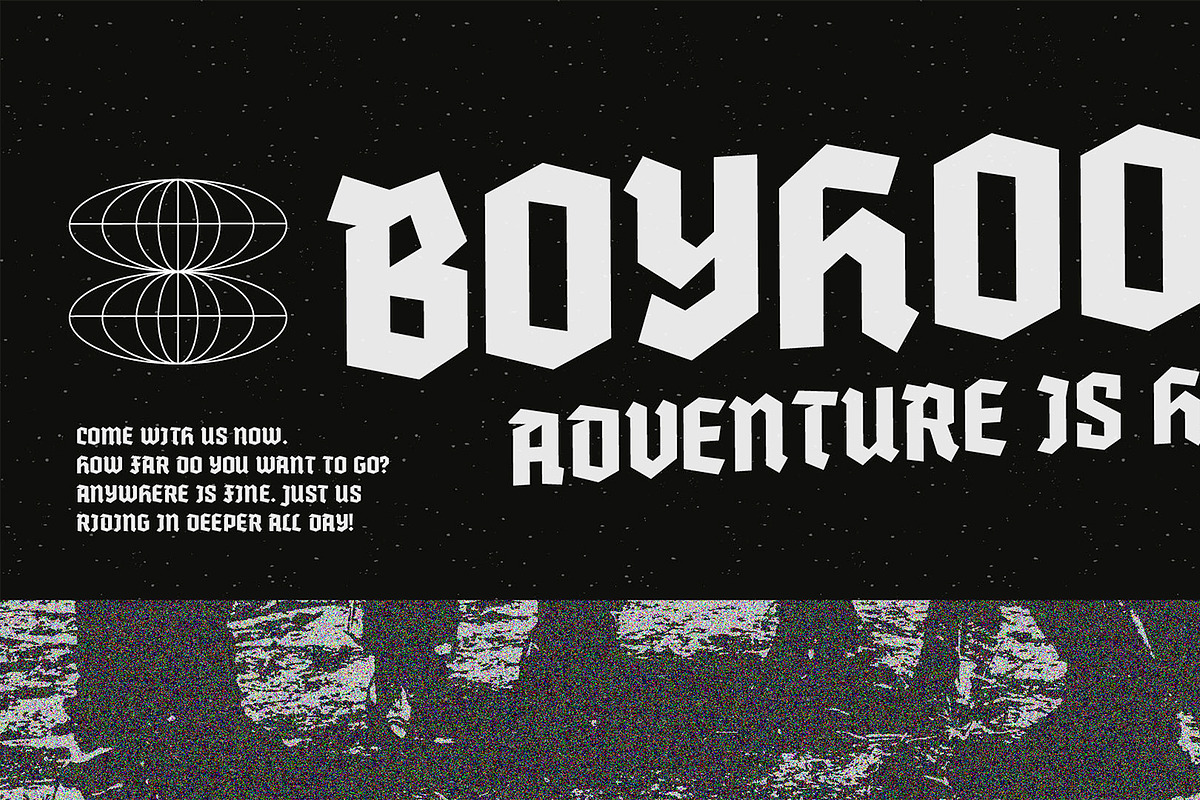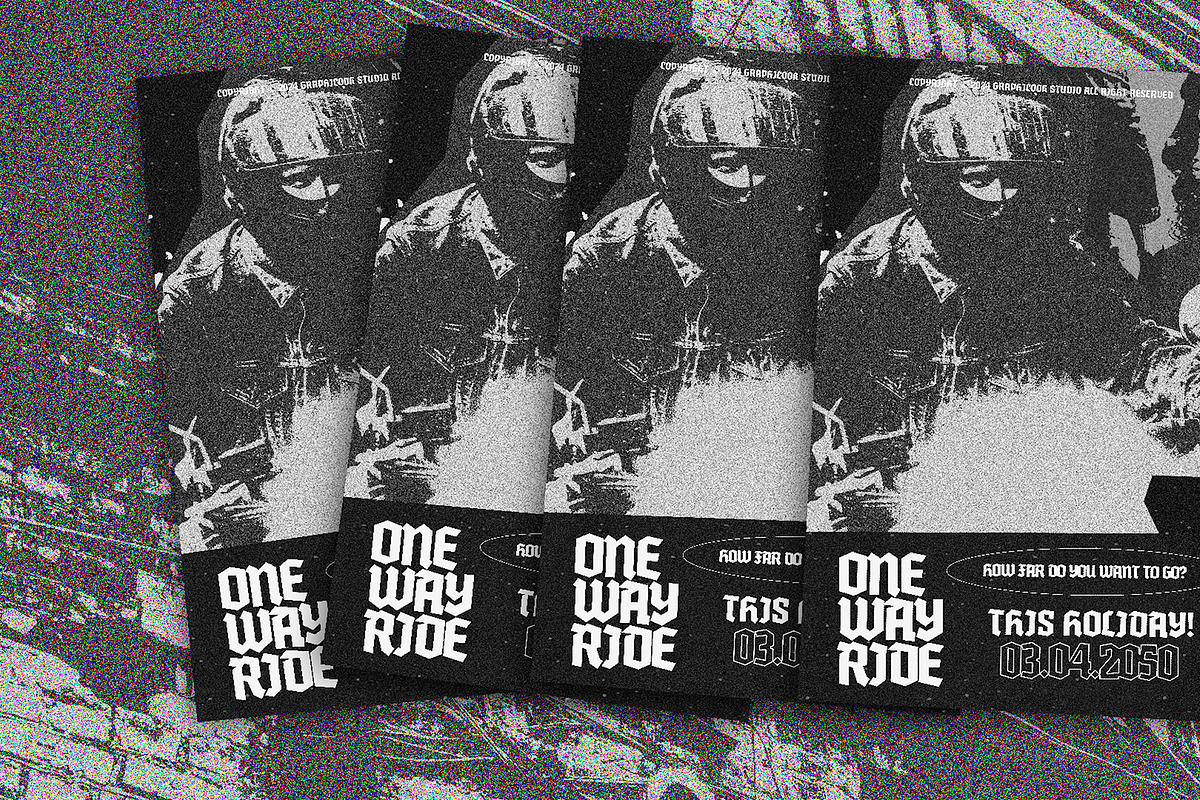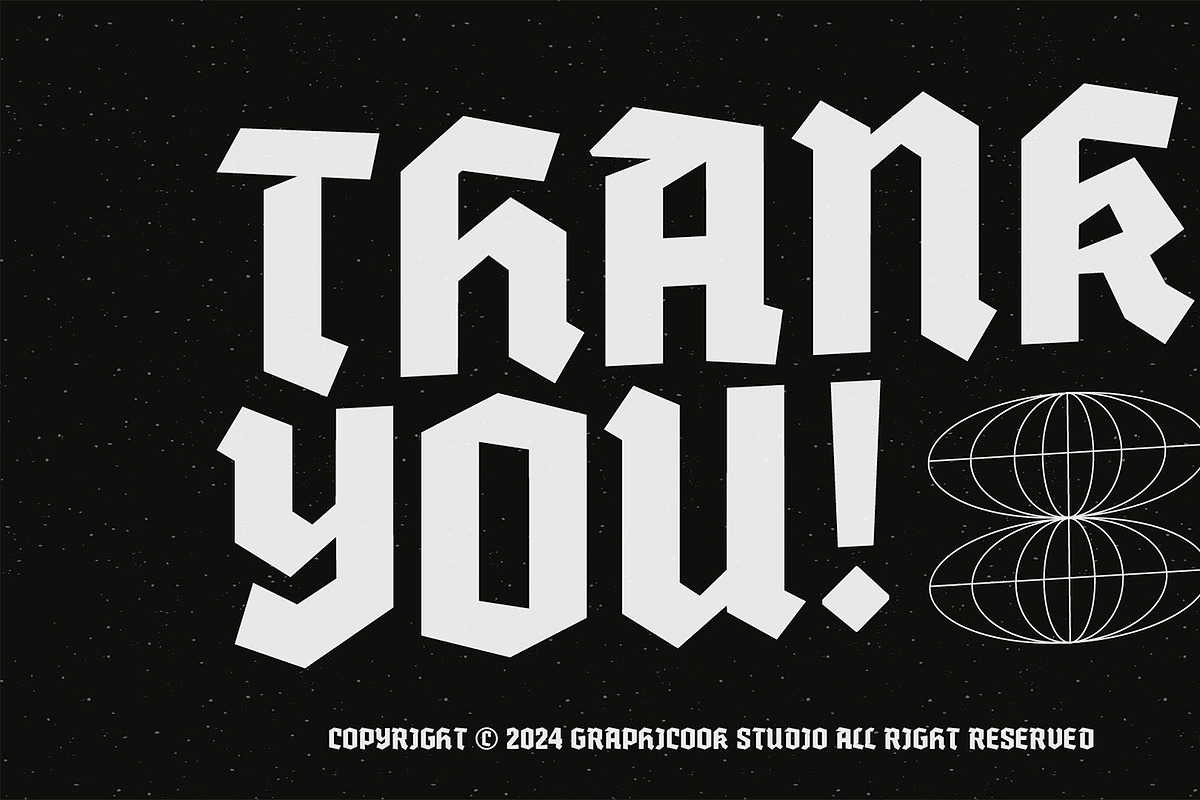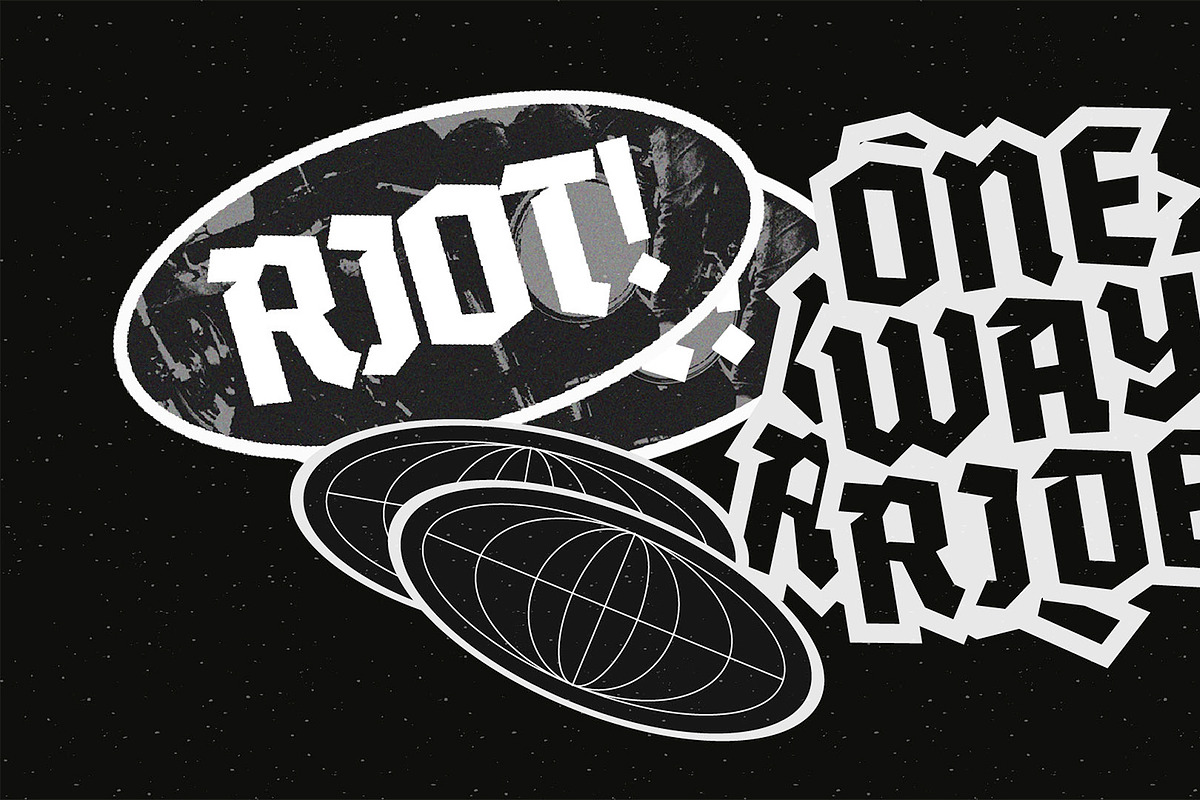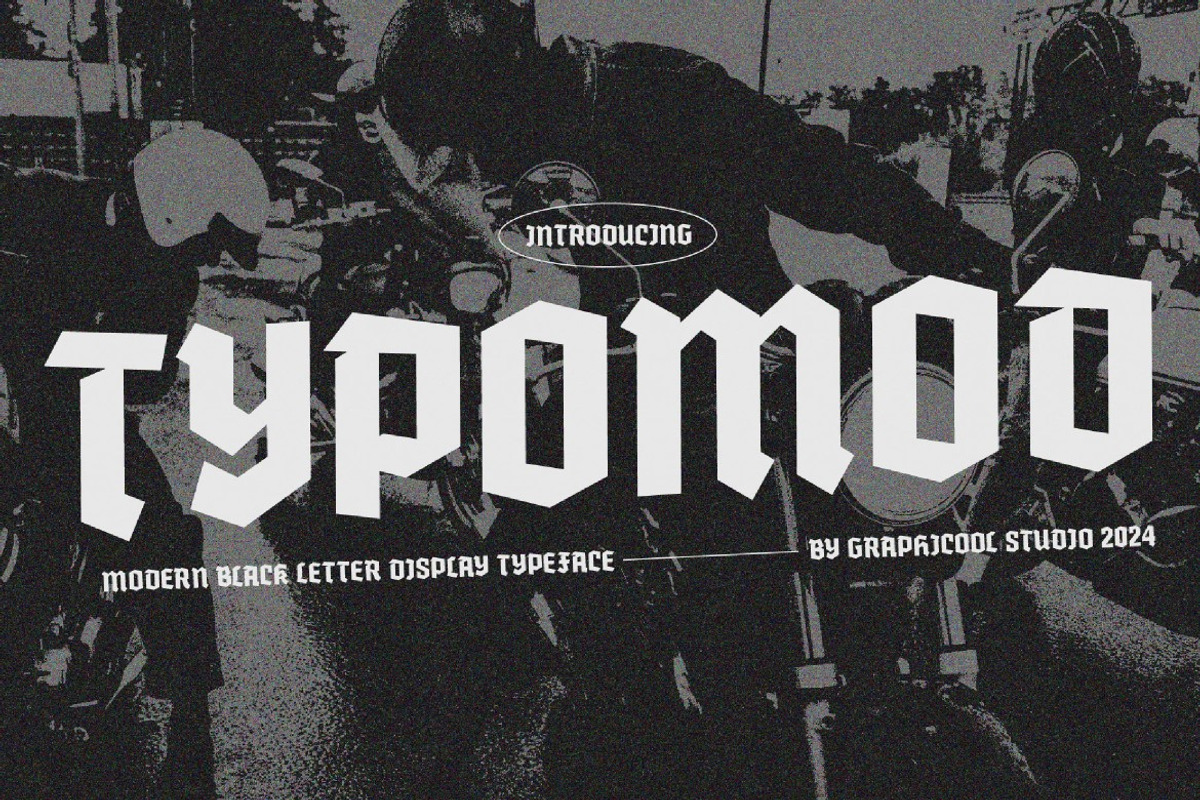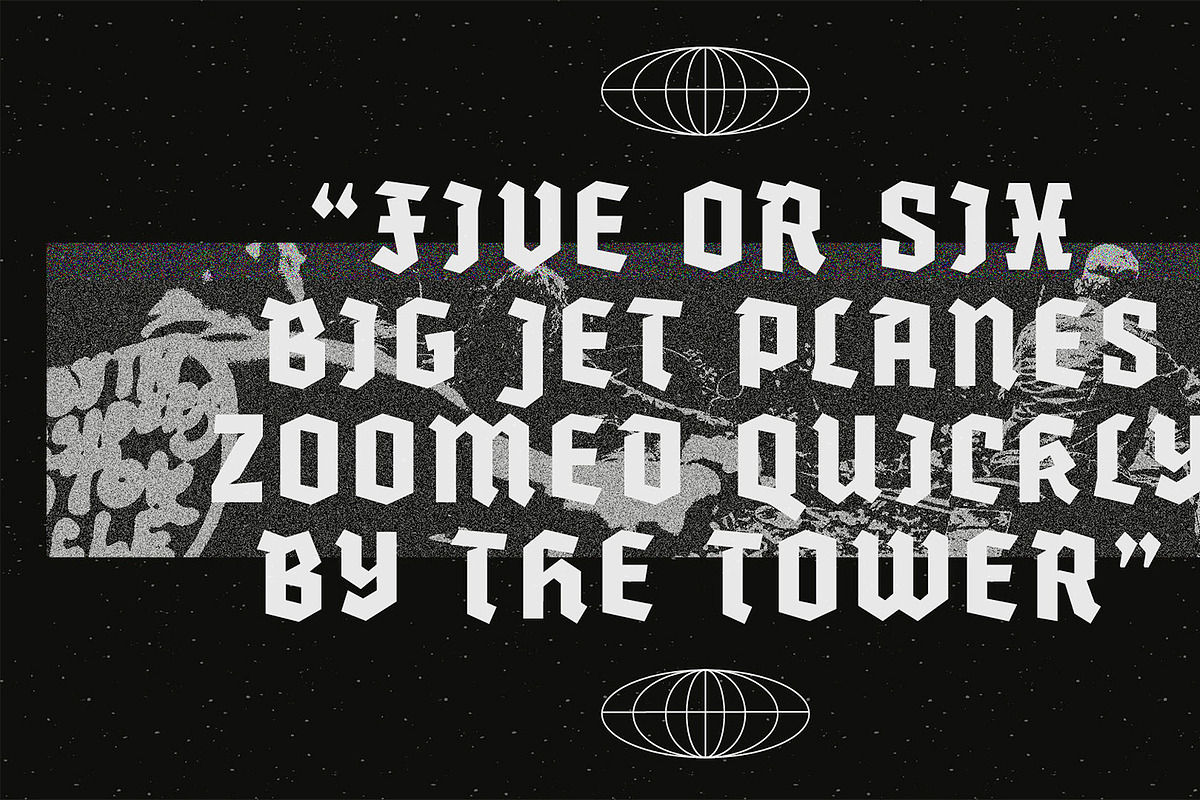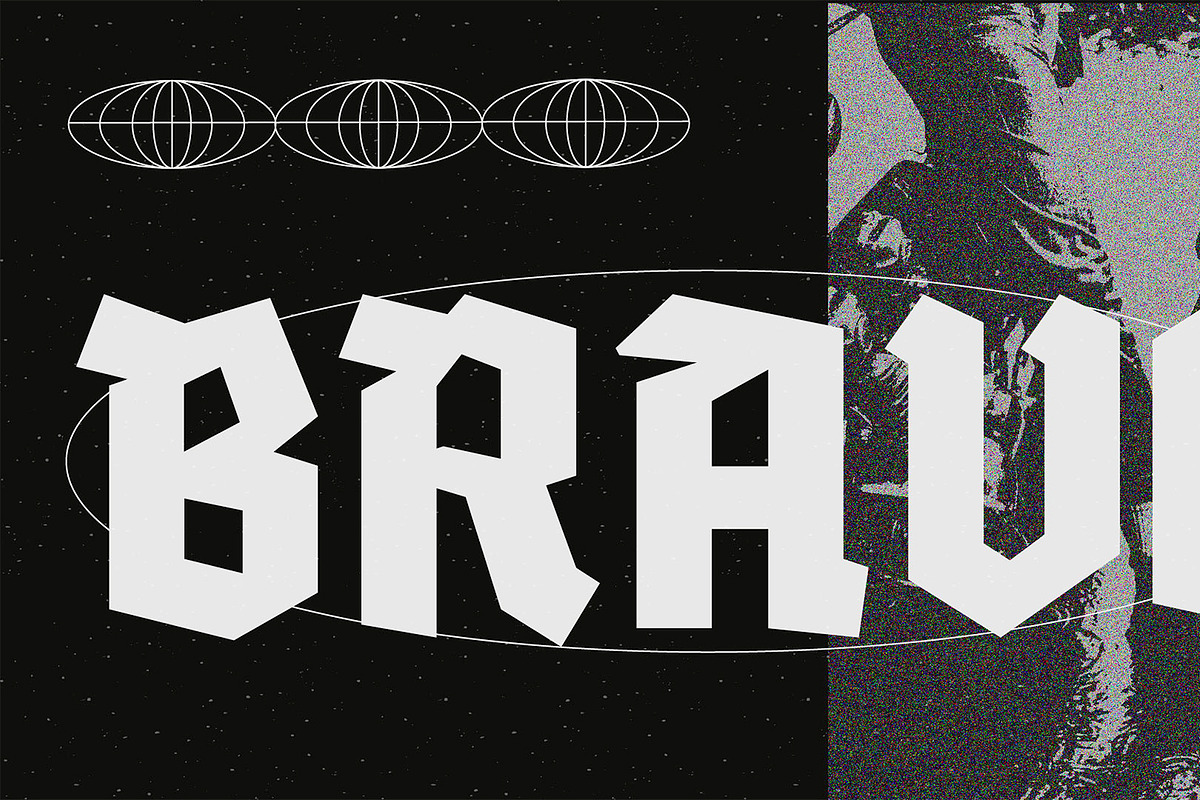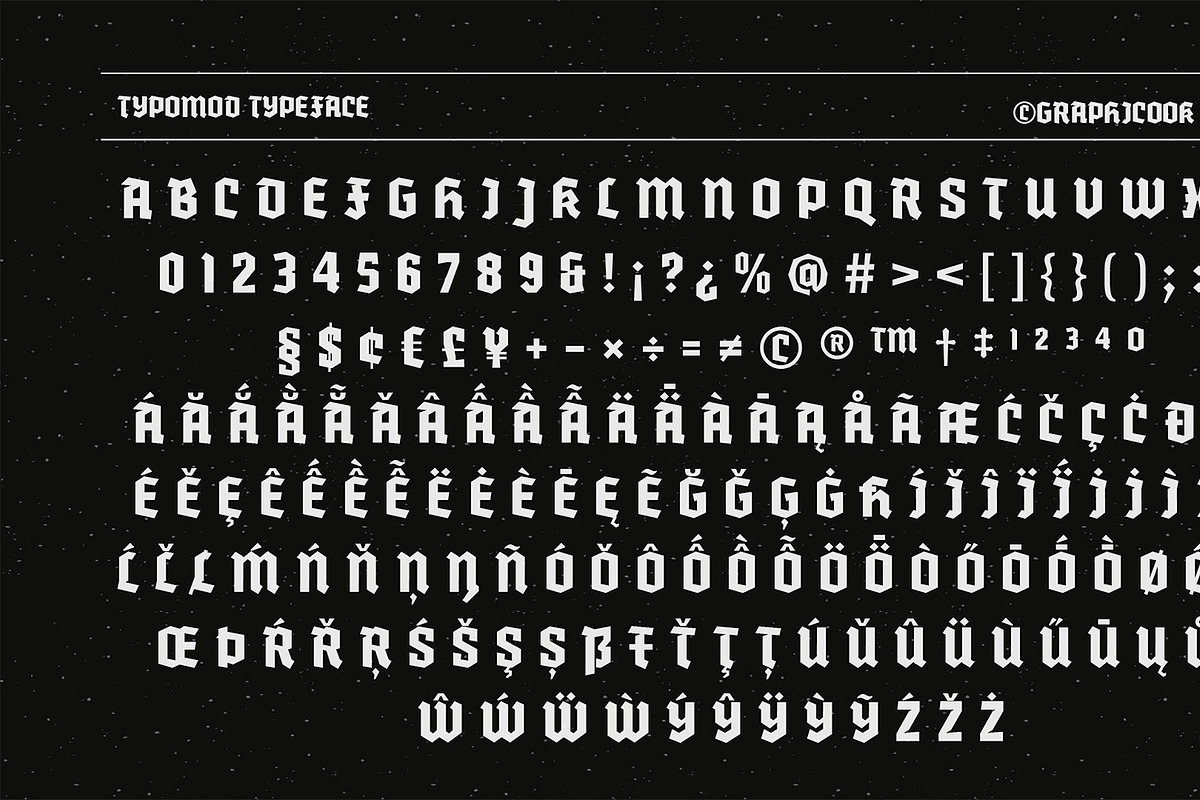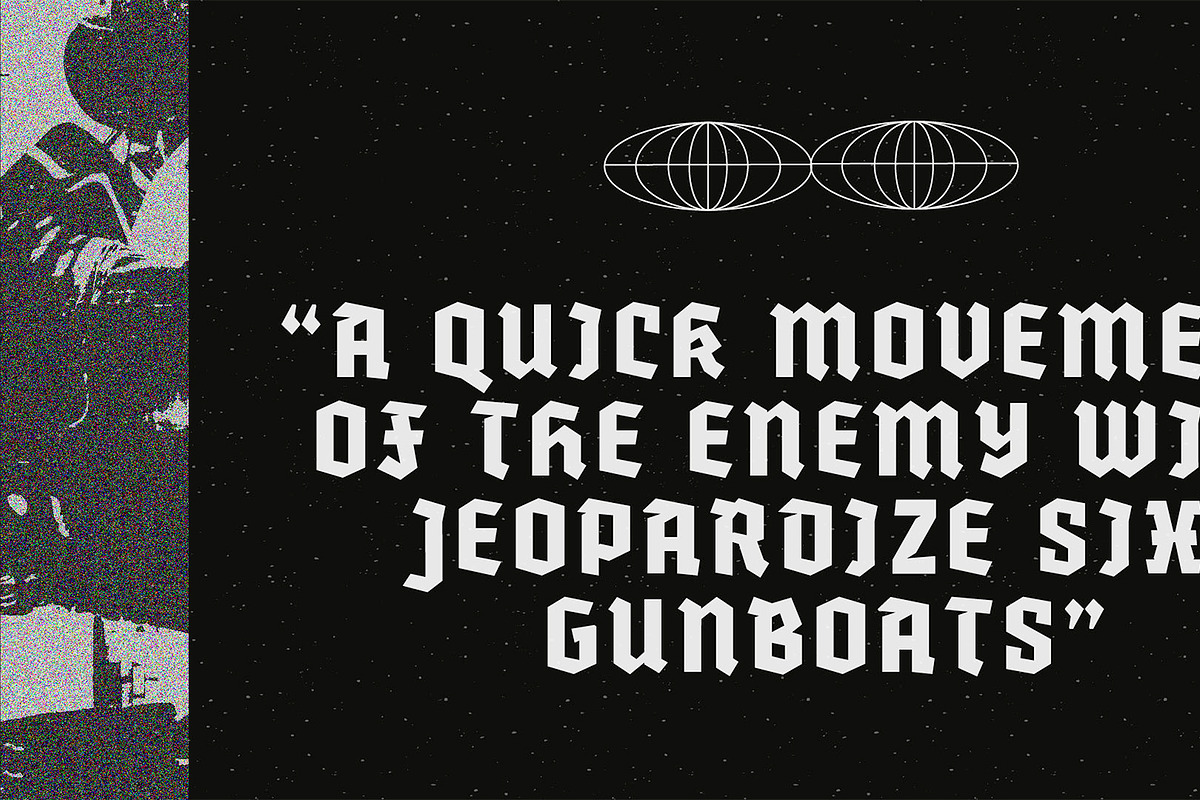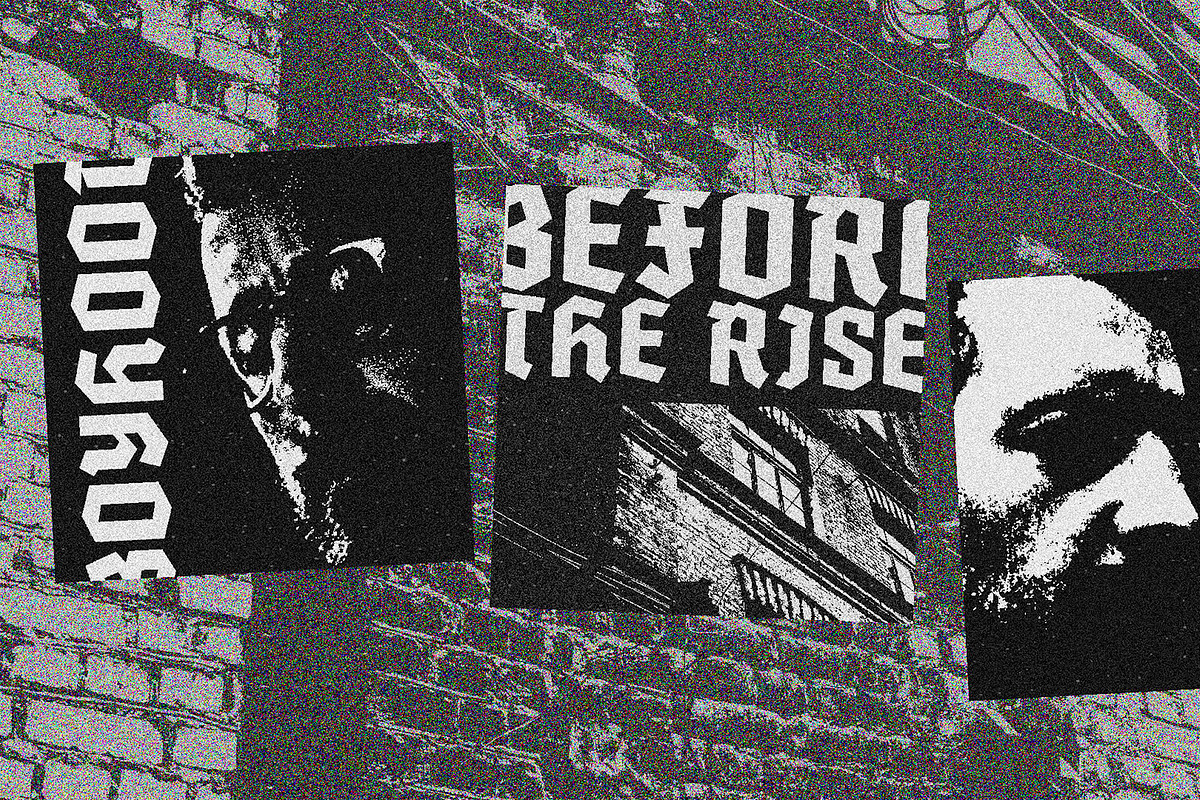
Typomod Modern Black Letter
Introducing Typomod Typeface! A modern textura on the classic black letter font style. Featuring a full set of capitals, multi-lingual support, numerals, and punctuation, it effortlessly blends tradition with contemporary design for a timeless and captivating aesthetic
Typomod is perfect for headlines, logotypes, magazines, packaging, quotes, movies, games, cover albums, book covers, and flyers, it's a perfect solution for creating eye-catching designs that stand out in any context.